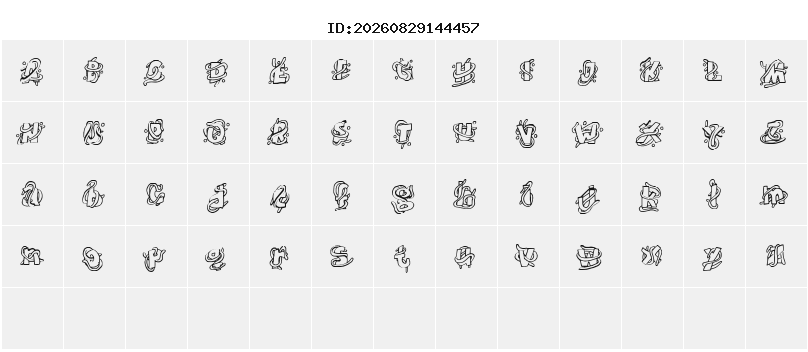
• Font Name: The Worms
• Description: Fuck this wuz a hard work, a hand job without end. Worms live in your brain. www.mrfisk.com
About The Worms.ttf